SIT-info
Adelle and Adelle Sans combined in the union newspaper Sit-info
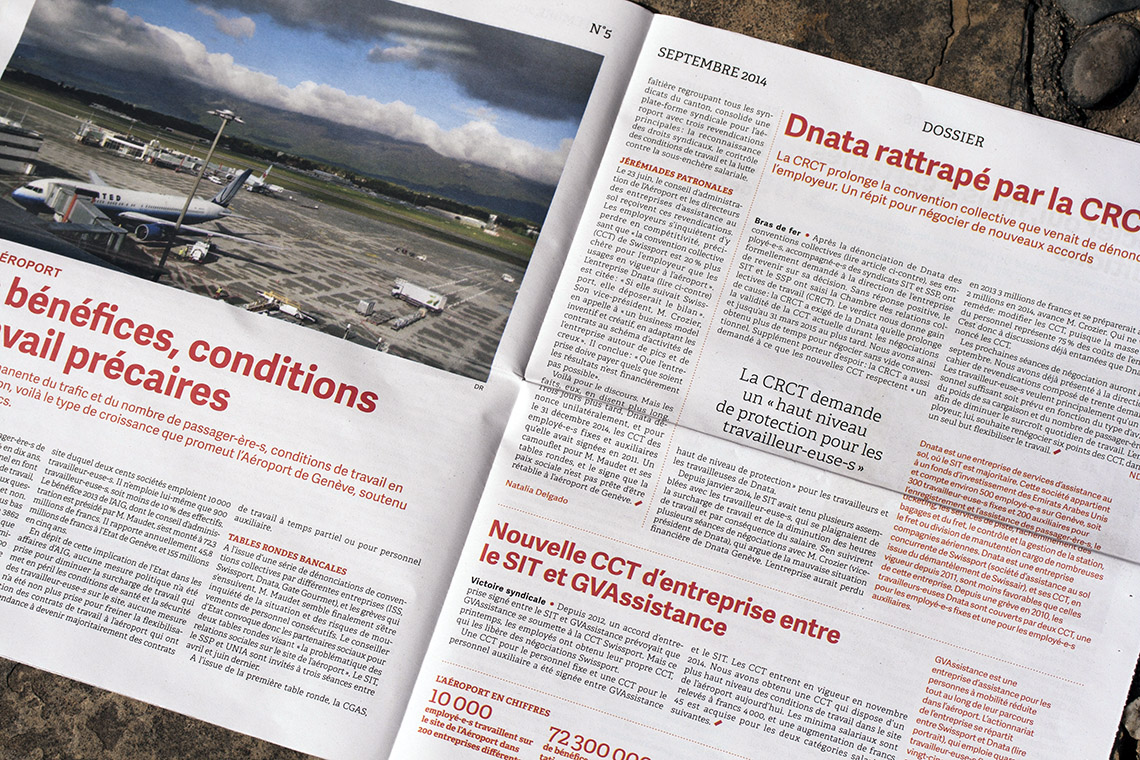
SIT is a labor union in Geneva, Switzerland, that defends and upholds the interests and rights of workers, especially those who struggle with inappropriate working conditions. The members receive a free of charge newspaper, SIT-info, eight times a year. The publication has been recently redesigned using exclusively a combination of Adelle and Adelle Sans; in the editors words to ‘combine elegance and comfort of reading’.